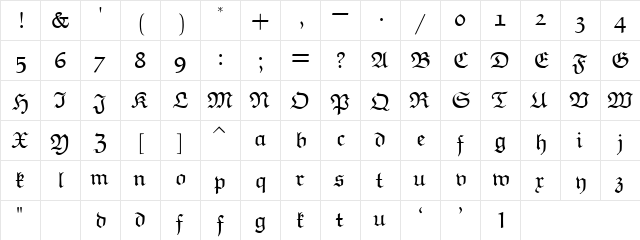
eufm9 Regular
Design Context for eufm9 Typeface
eufm9 takes a measured approach to typography — its balanced proportions and neutral character make it a reliable workhorse for both digital and print work.
Pro Tip: Pair eufm9 with a font of contrasting weight or personality to build a more expressive typographic hierarchy.